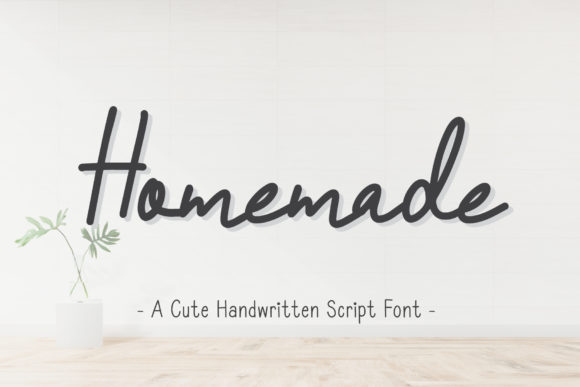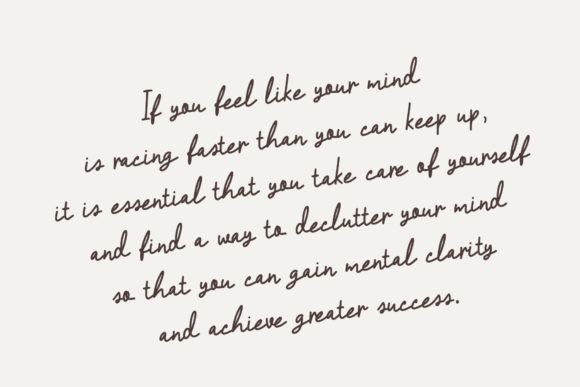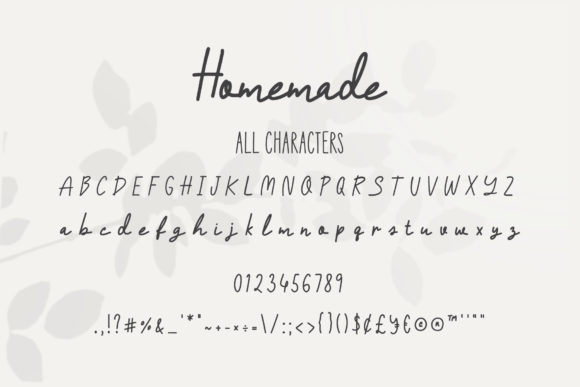
About Homemade Font
Homemade is a handwritten font with a modern and elegant feel. It can be used for logos, branding, invitations, cards, and social media posts.This font is PUA encoded which means you can access all of the glyphs and swashes with ease!